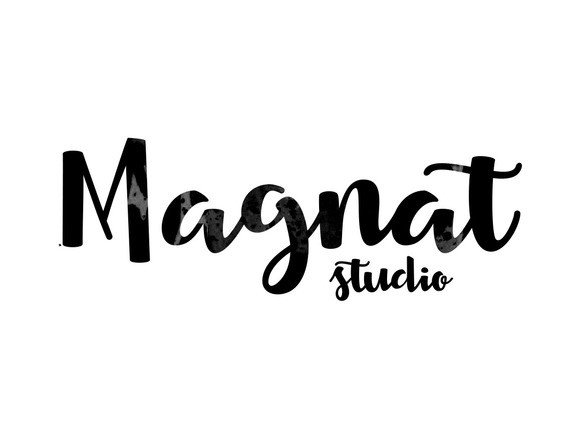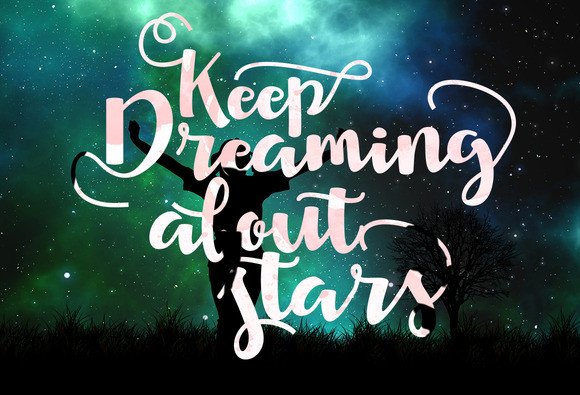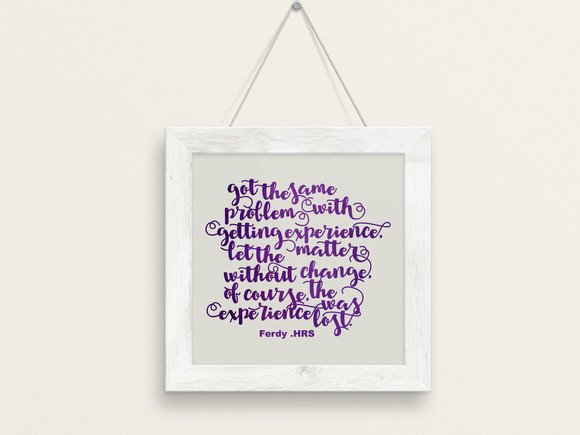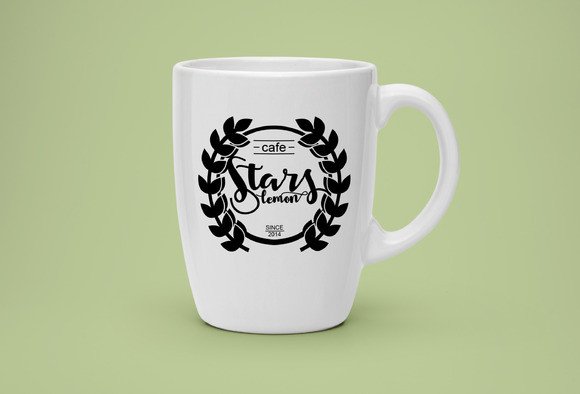
Dreams Liem Font: Elevate Your Designs with a Stunning Script Font
Are you tired of using the same old fonts in your designs? Look no further than the Dreams Liem font, a high-impact script font that is sure to take your digital and print designs to the next level. With its unique blend of style and elegance, Dreams Liem is the perfect choice for designers and crafters looking to add a touch of sophistication to their work.
What is Dreams Liem Font?
Dreams Liem is a stunning script font that is designed to make a statement. With its bold and flowing lines, this font is perfect for creating eye-catching headlines and titles that are sure to grab attention. Whether you’re working on a digital project or a print design, Dreams Liem is a versatile font that can be used in a variety of contexts.
Key Features of Dreams Liem Font
- High-impact design: Dreams Liem is designed to make a statement, with bold and flowing lines that are sure to grab attention.
- Script font style: This font features a beautiful script style that is perfect for creating elegant and sophisticated designs.
- Suitable for digital and print designs: Whether you’re working on a website, social media graphic, or print brochure, Dreams Liem is a versatile font that can be used in a variety of contexts.
- Tons of style: With its unique blend of style and elegance, Dreams Liem is a font that can be used to create a wide range of designs, from modern and edgy to classic and sophisticated.
Why Choose Dreams Liem Font?
So why choose Dreams Liem font for your next design project? Here are just a few reasons why this font stands out from the crowd:
- Unique and eye-catching: Dreams Liem is a font that is sure to grab attention, with its bold and flowing lines that are unlike anything else out there.
- Versatile: This font can be used in a variety of contexts, from digital designs to print materials.
- Elegant and sophisticated: Dreams Liem features a beautiful script style that is perfect for creating elegant and sophisticated designs.
- Easy to read: Despite its bold and flowing lines, Dreams Liem is a font that is easy to read, making it perfect for use in headlines and titles.
How to Use Dreams Liem Font in Your Designs
So how can you use Dreams Liem font in your designs? Here are a few ideas to get you started:
- Headlines and titles: Dreams Liem is a perfect font for use in headlines and titles, where its bold and flowing lines can really make a statement.
- Logos and branding: This font can be used to create unique and eye-catching logos and branding materials that are sure to stand out.
- Social media graphics: Dreams Liem is a great font to use in social media graphics, where its bold and flowing lines can help to grab attention.
- Print materials: This font can be used in a variety of print materials, from brochures and flyers to business cards and letterheads.
Tips for Getting the Most Out of Dreams Liem Font
Here are a few tips for getting the most out of Dreams Liem font:
- Use it sparingly: While Dreams Liem is a beautiful font, it can be overwhelming if used too much. Use it sparingly to create a bold and eye-catching design.
- Experiment with different colors: This font looks great in a variety of colors, so don’t be afraid to experiment and find the perfect color for your design.
- Pair it with other fonts: Dreams Liem can be paired with other fonts to create a unique and eye-catching design. Try pairing it with a simple sans-serif font for a bold and modern look.
In conclusion, Dreams Liem font is a stunning high-impact font that is sure to elevate your designs to the next level. With its unique blend of style and elegance, this script font is perfect for creating eye-catching headlines and titles that are sure to grab attention. Whether you’re working on a digital project or a print design, Dreams Liem is a versatile font that can be used in a variety of contexts.